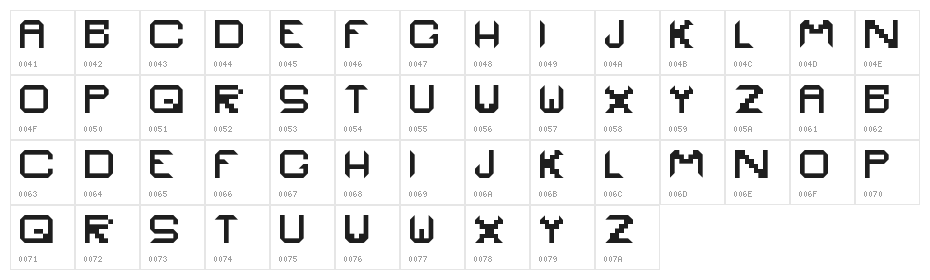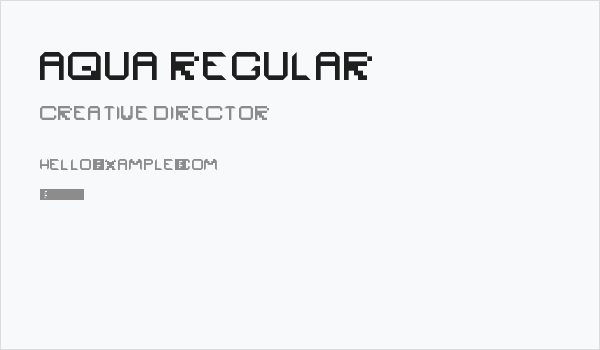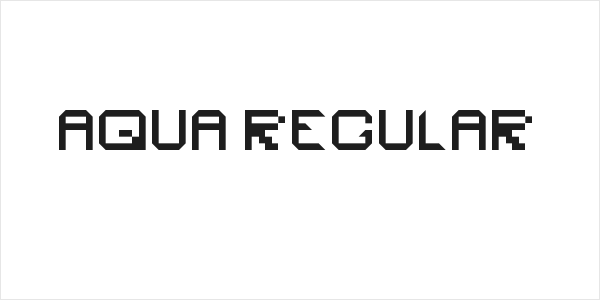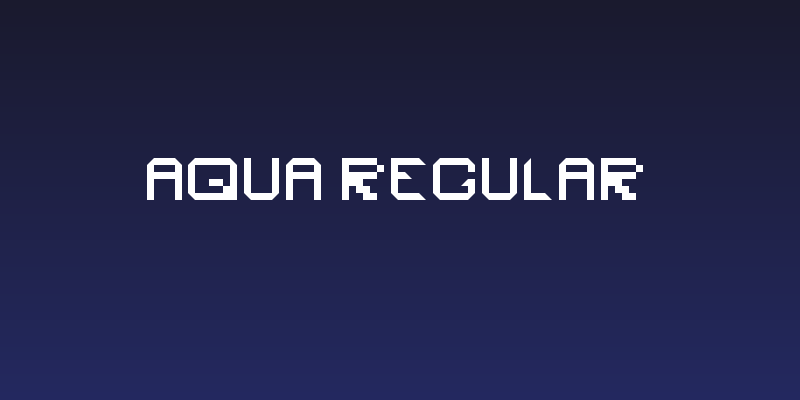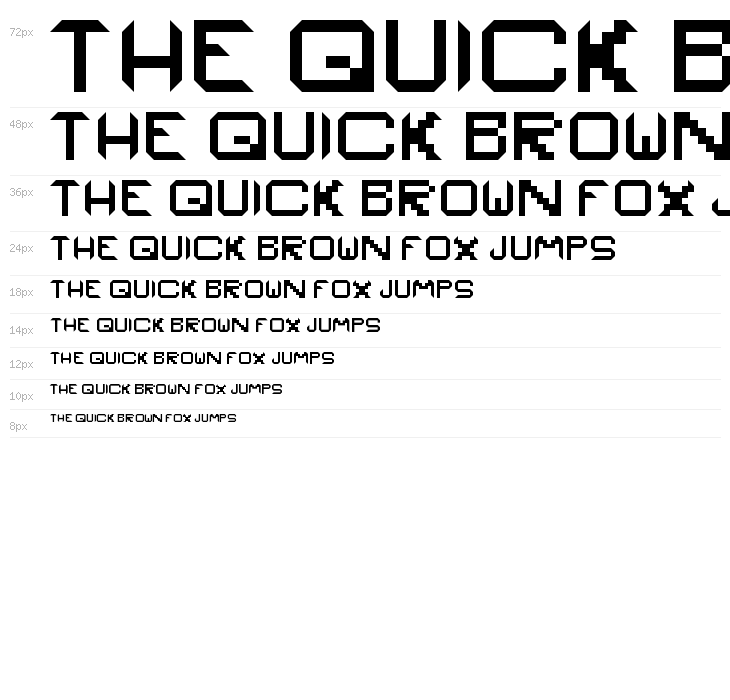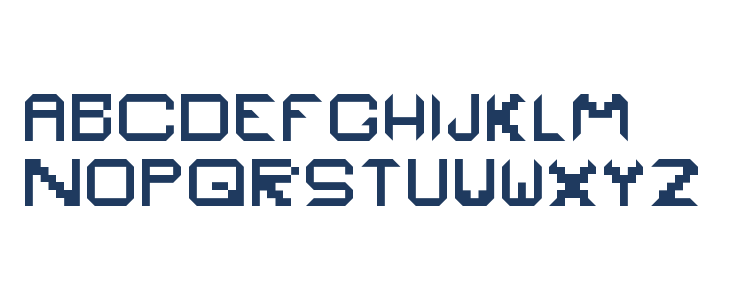
Aqua Regular Font
Aqua Regular Description
This font features a bold, geometric design with a futuristic and digital aesthetic. The characters are constructed with sharp angles and straight lines, giving it a blocky appearance. The uppercase letters are uniform in height, while the lowercase letters maintain a consistent style, enhancing readability. The numbers and special characters follow the same angular theme, making them cohesive with the alphabet. This font's unique style is reminiscent of early digital displays or retro video games, making it stand out in modern design applications.
AQUA-REGULAR UPPERCASE
AQUA-REGULAR LOWERCASE
AQUA-REGULAR OTHER CHARS